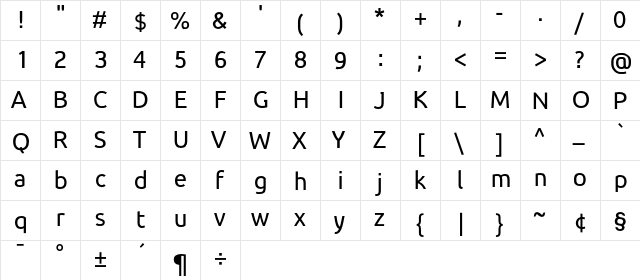
Earthbound Regular
| Foundry | Richard Alexander Hall |
| Designer | Richard Alexander Hall |
Design Context for Earthbound Typeface
Earthbound is a composed and adaptable typeface that performs quietly and consistently across a wide range of design contexts.
Pro Tip: Use Earthbound in both headline and body roles to test its range before committing to a single application.